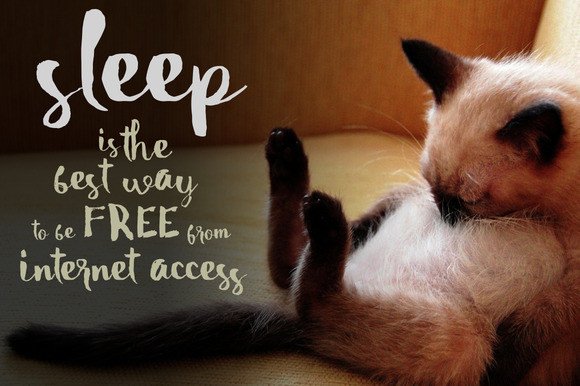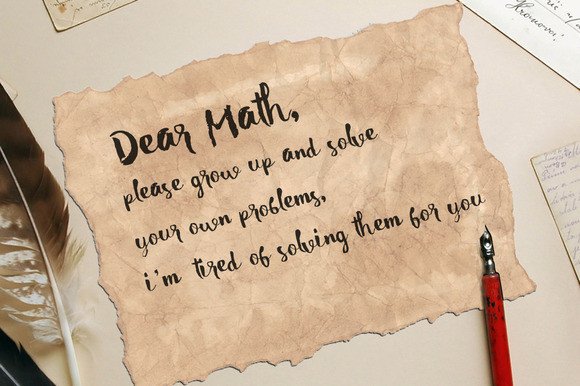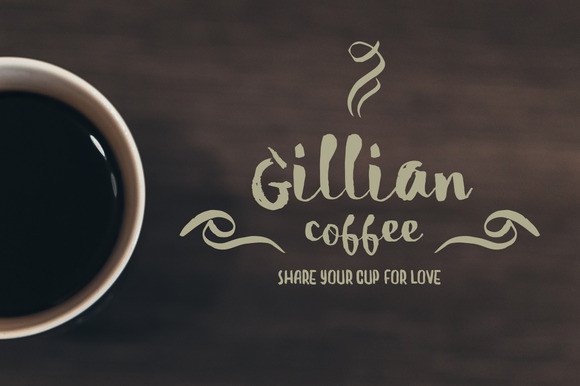
Introduction to Matauro Font
A stunning modern brush font.
Key Features of Matauro Font
Why Choose Matauro Font?
Matauro Font offers exceptional quality and versatility, making it a valuable addition to your design toolkit. Whether you’re creating for personal projects or commercial use, Matauro Font delivers professional results.